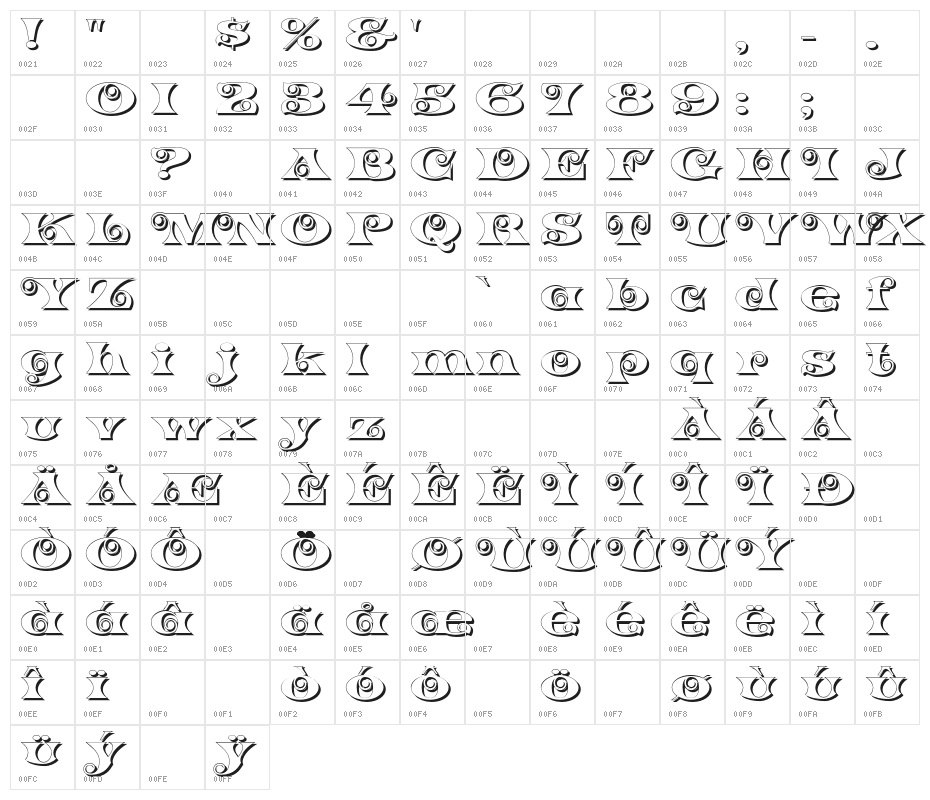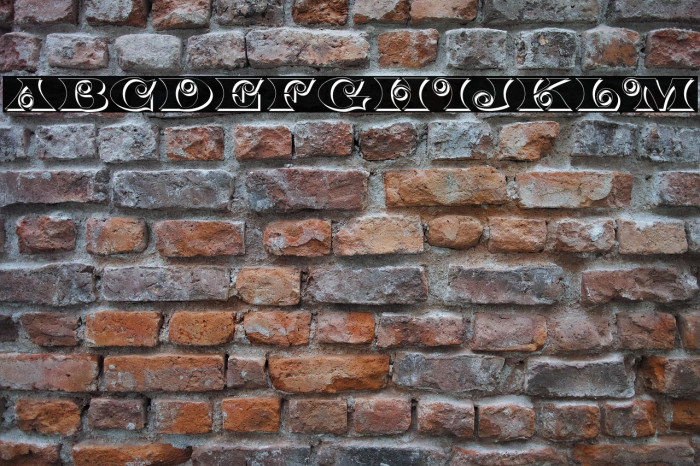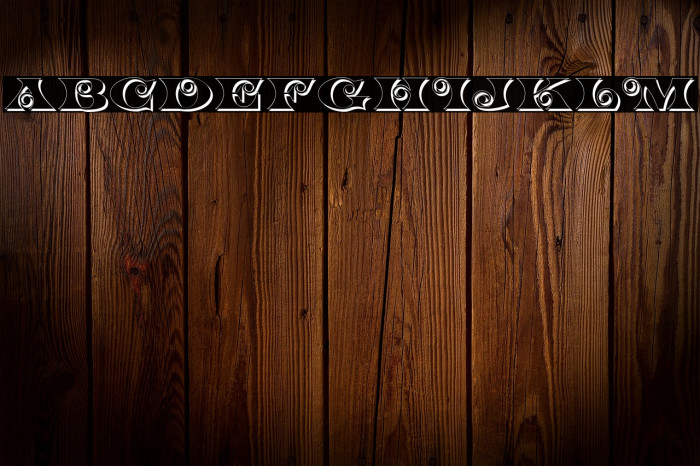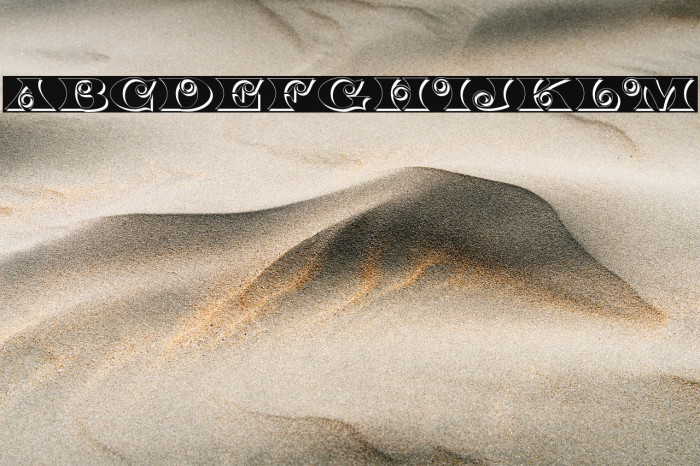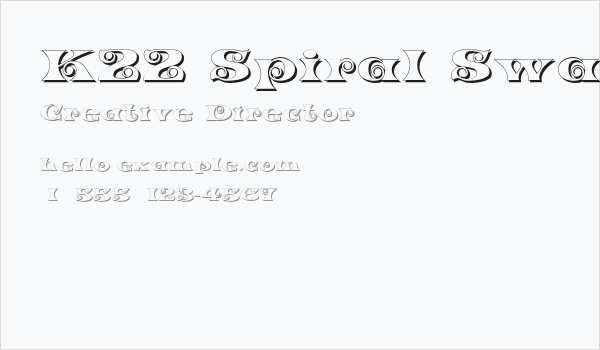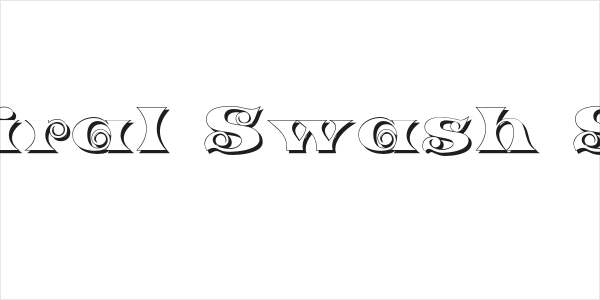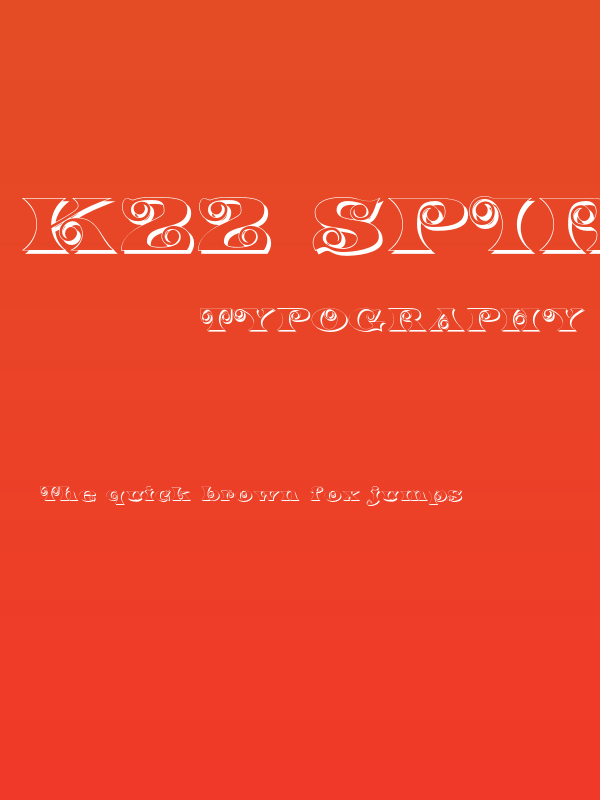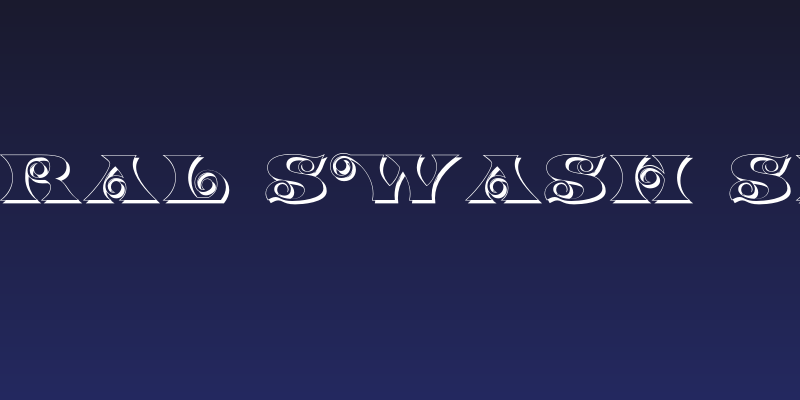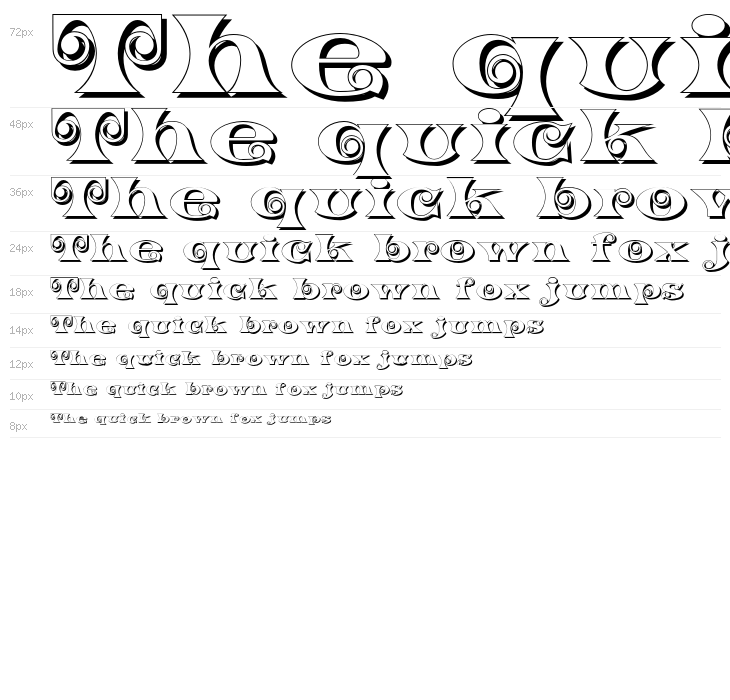
K22 Spiral Swash Shadow Font
K22 Spiral Swash Shadow Description
This font features a decorative and whimsical style, characterized by its intricate swirls and shadowed elements. Each letter is adorned with spiral embellishments, giving it a playful and artistic flair. The uppercase and lowercase letters maintain a consistent design theme, with bold strokes and unique curves that create a sense of movement. The numerals and special characters are equally ornate, making this font ideal for creative and eye-catching designs. Its distinct appearance makes it stand out, perfect for projects that require a touch of elegance and creativity.
| Proposed Projects | Ideal for invitations, posters, branding, and any project that benefits from a decorative and unique typeface. |